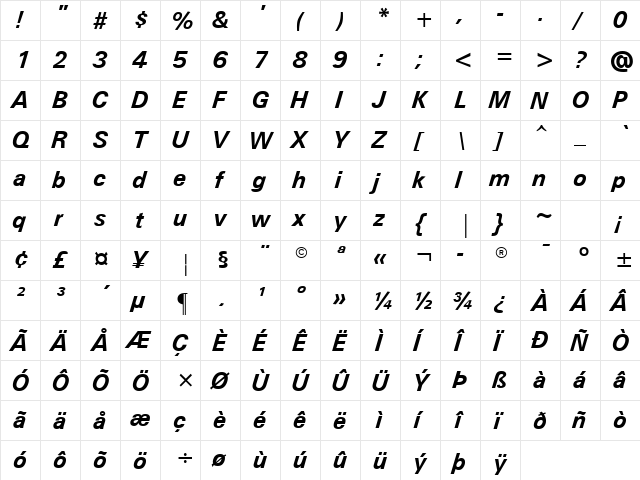
Black Dog 13 Bold Italic Font Preview
Black Dog 13 Bold Italic
Design Context for Black Dog 13 Typeface
Black Dog 13 takes a measured approach to typography — its balanced proportions and neutral character make it a reliable workhorse for both digital and print work. The dynamic lean of this cut emphasises speed and emphasis in any layout. Its bold stroke weight gives it real presence on the page.
Pro Tip: Try Black Dog 13 for annotation and caption copy alongside an upright companion — the contrast in angle creates a dynamic but ordered typographic system.